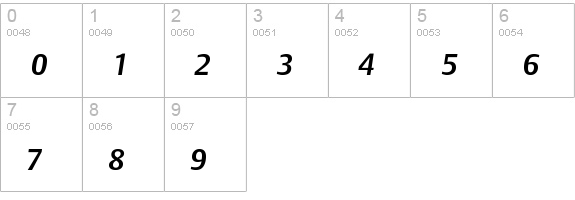
DTLArgoTCaps-Italic is a distinctive, italic variant in the DTLArgoTCaps typeface family \xE2\x80\x94 well suited to design and typography projects.
The DTLArgoTCaps-Italic font is a stylish and elegant typeface that exudes sophistication and charm. Its slanted and sleek design gives a modern touch to any project, making it perfect for adding a touch of class to your designs. The italicized letters provide a sense of movement and flair, making this font ideal for creating eye-catching headlines and titles. What sets DTLArgoTCaps-Italic font apart is that it is available for free download at FontsMarket.com, allowing you to easily access and use this beautiful typeface in your projects without any cost. Whether you're designing a logo, poster, or invitation, this font will elevate your work with its unique style and versatility. Don't miss out on the opportunity to enhance your designs with the DTLArgoTCaps-Italic font - download it for free today!